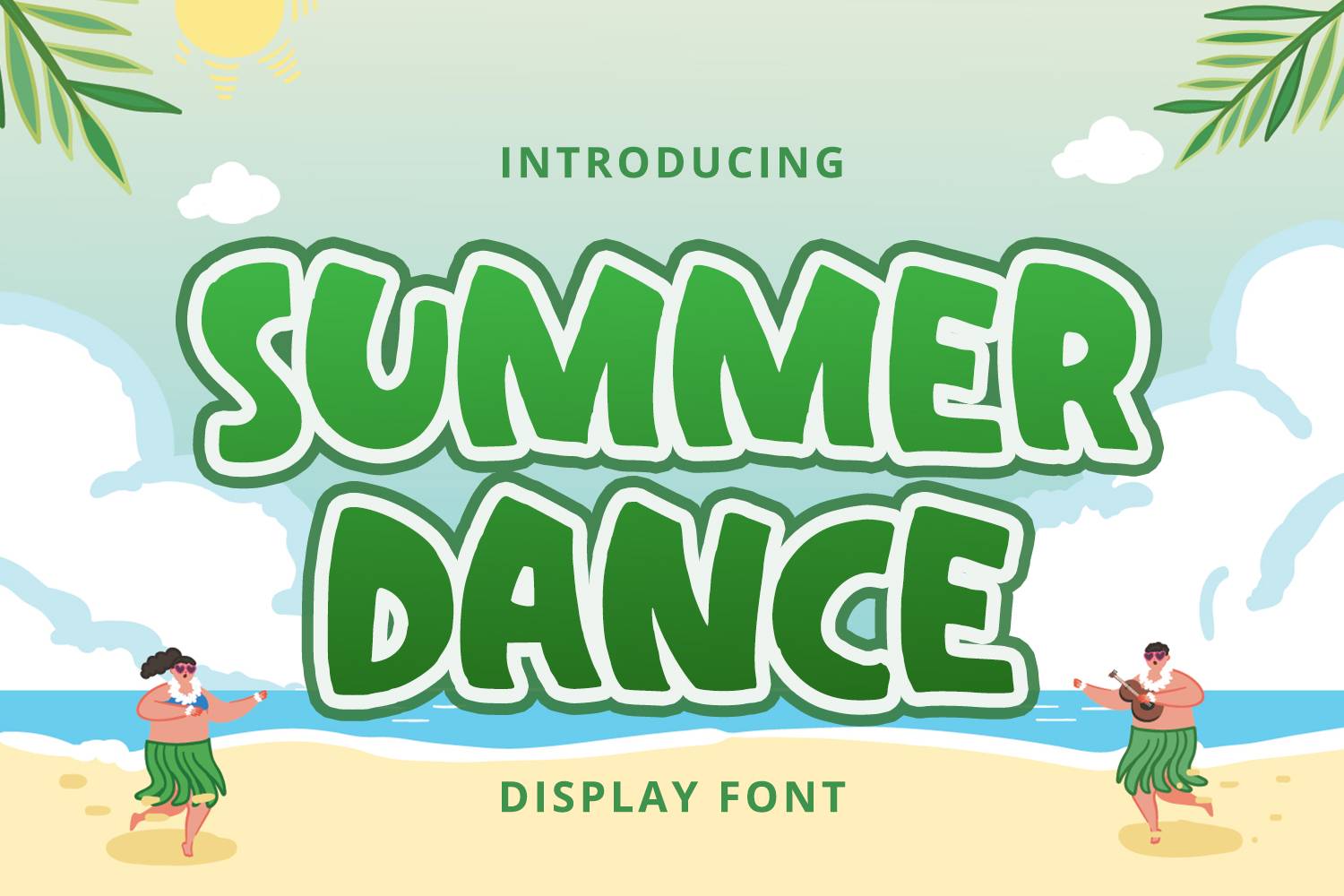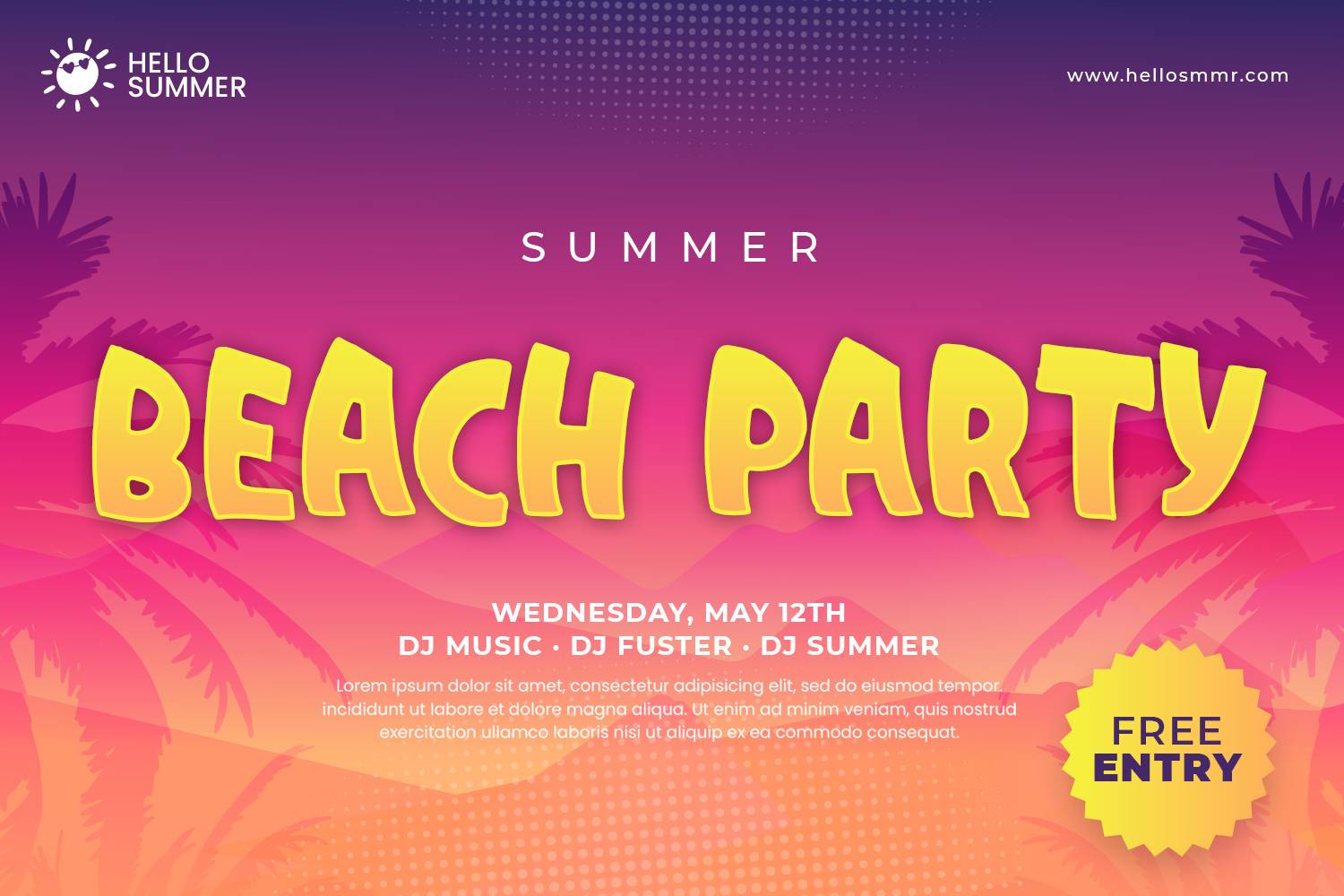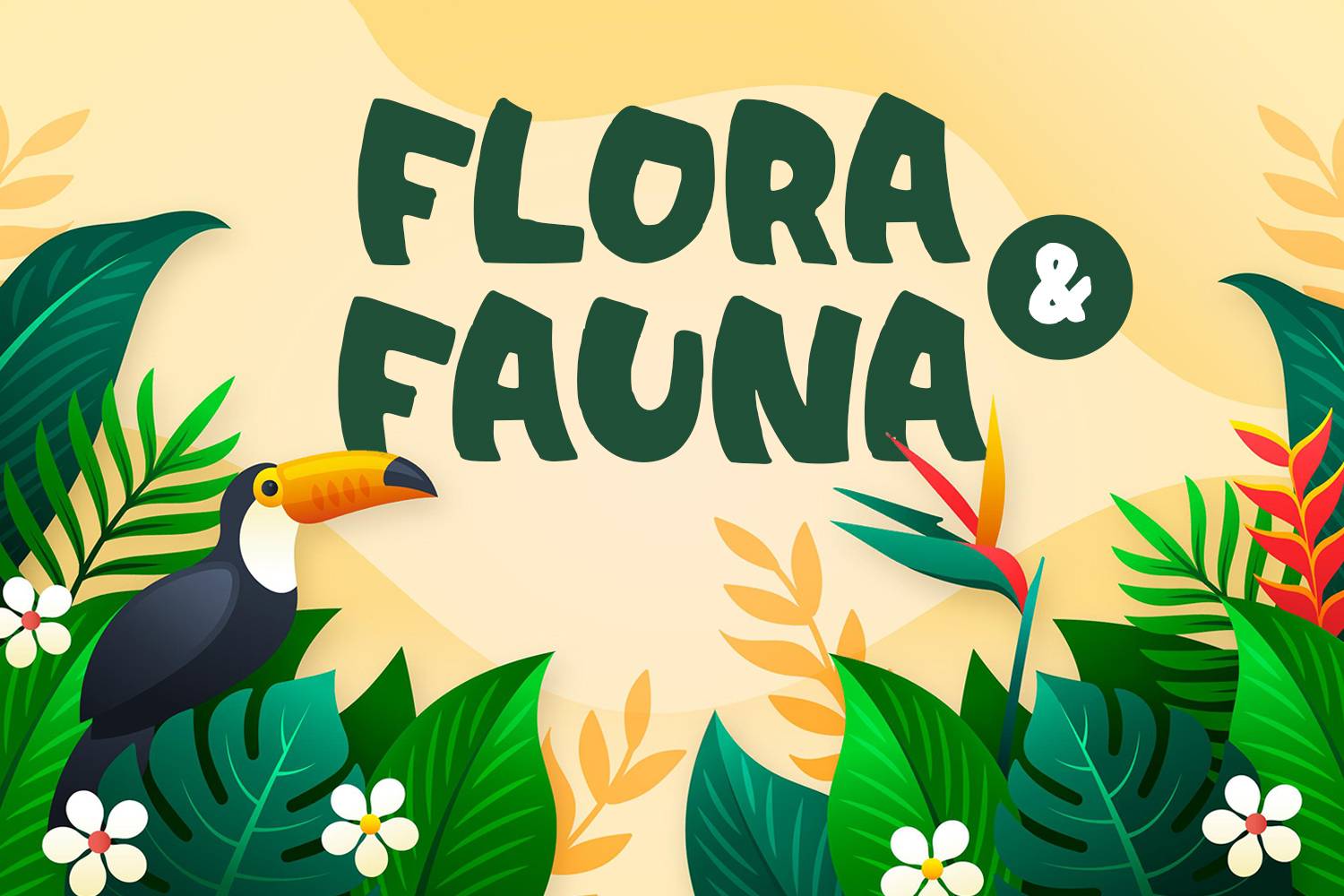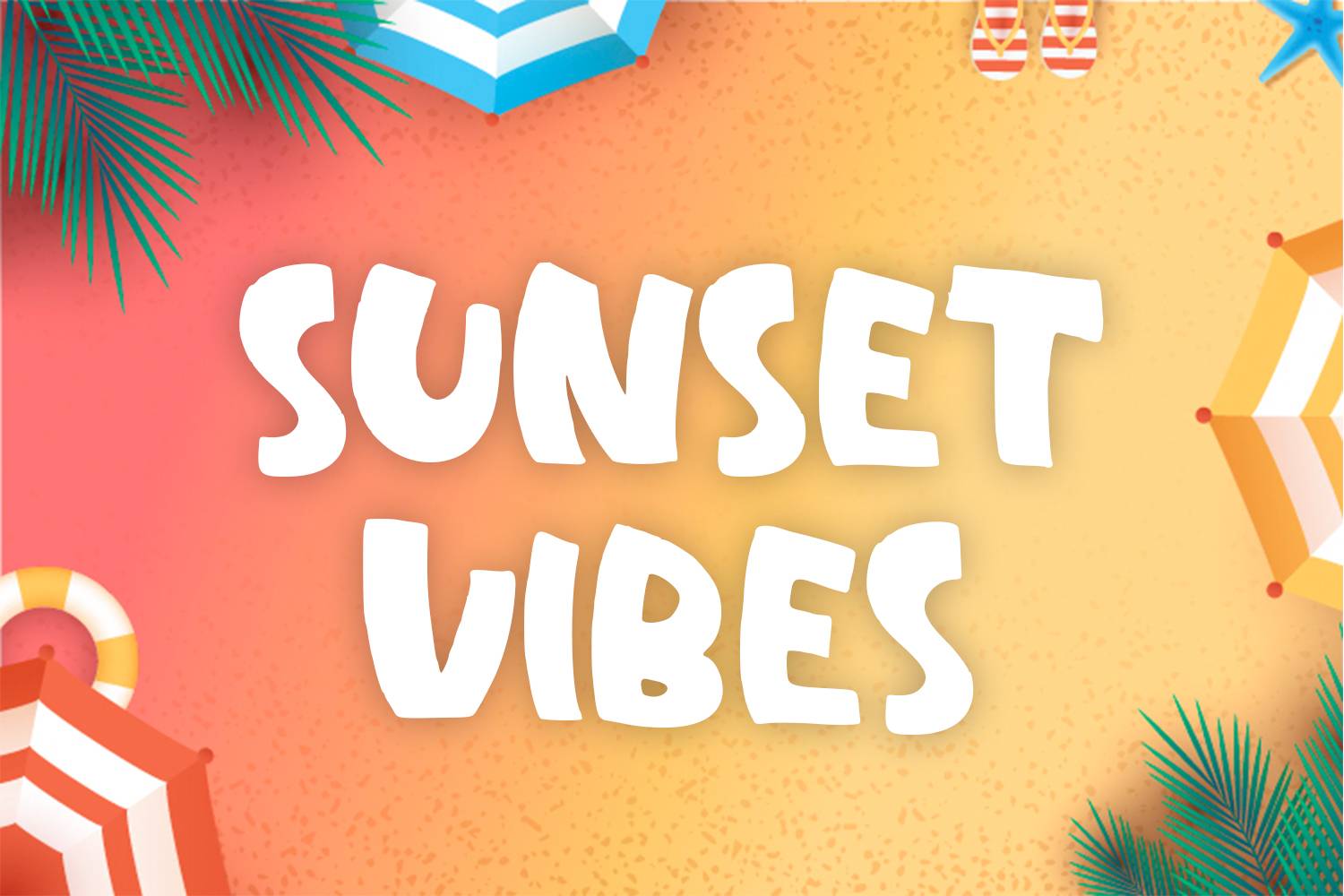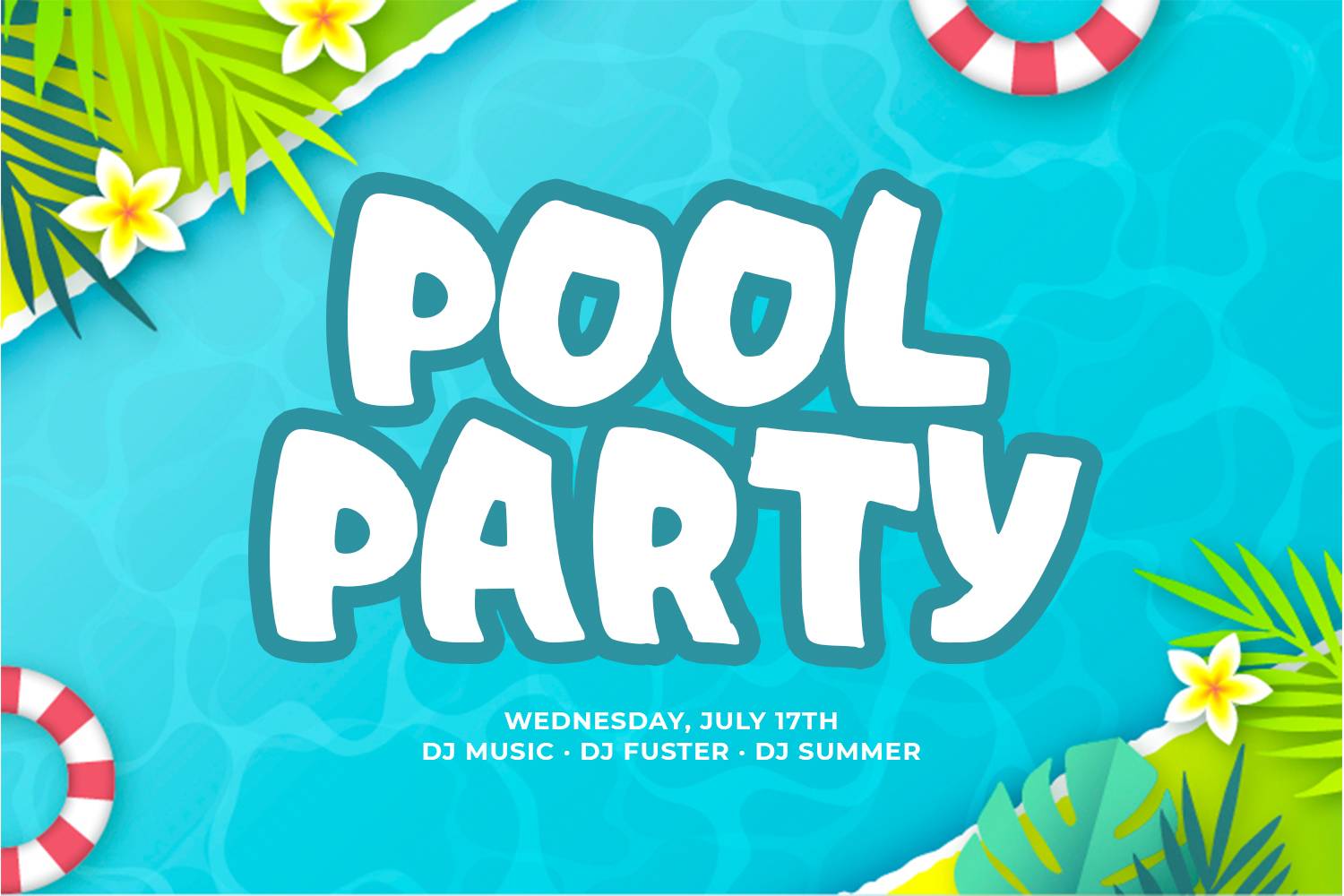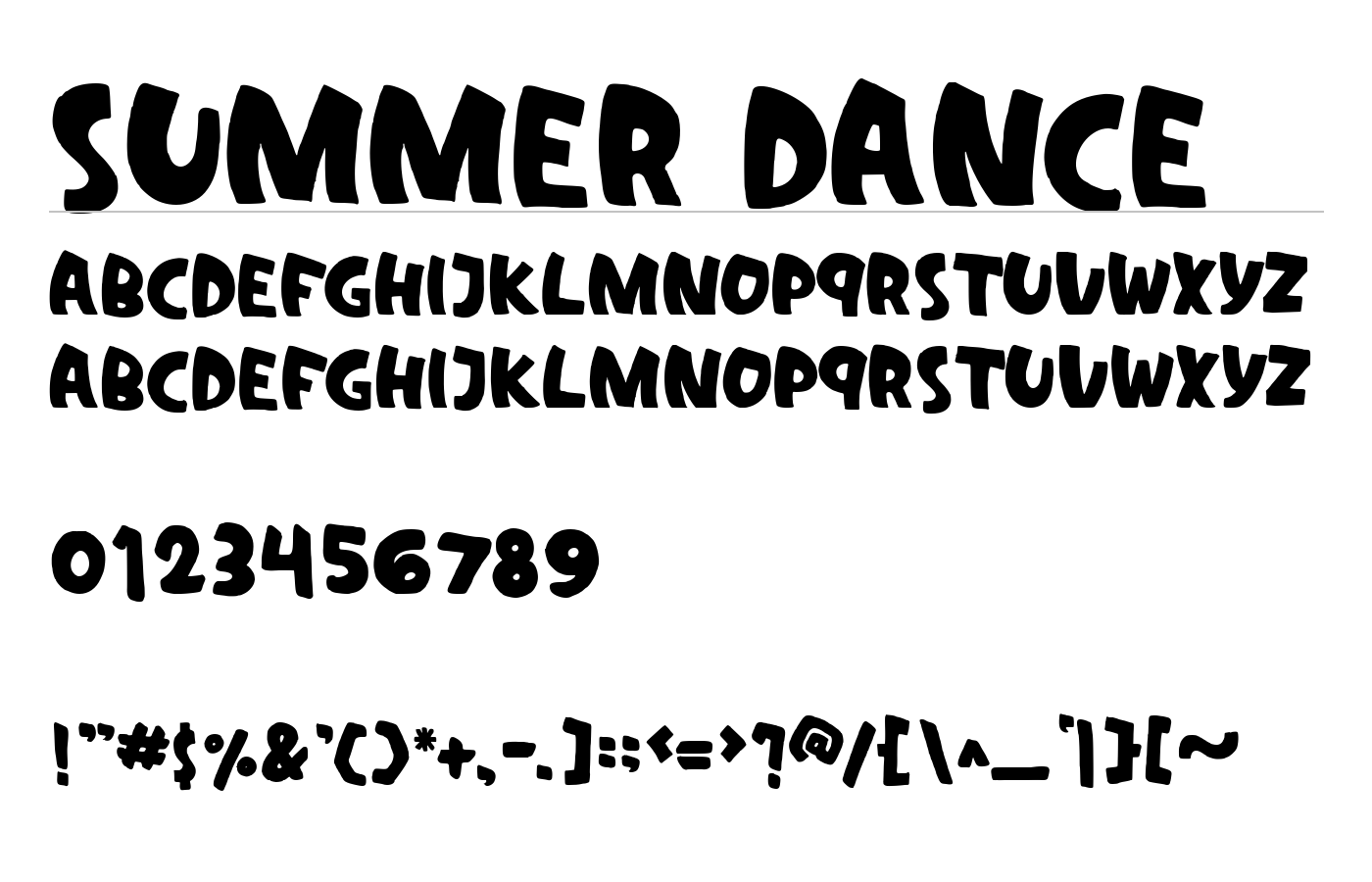
Summer Dance is a bold, playful sans serif font with a hand-drawn feel, featuring thick, uneven strokes and slightly irregular shapes that give it a lively and casual personality. Its uppercase letters are chunky and wide with a high x-height, making it perfect for eye-catching headlines, fun posters, and creative branding that wants to convey energy and friendliness. This font works best in informal, youthful designs where a cheerful and approachable vibe is desired.
Summer Dance Font